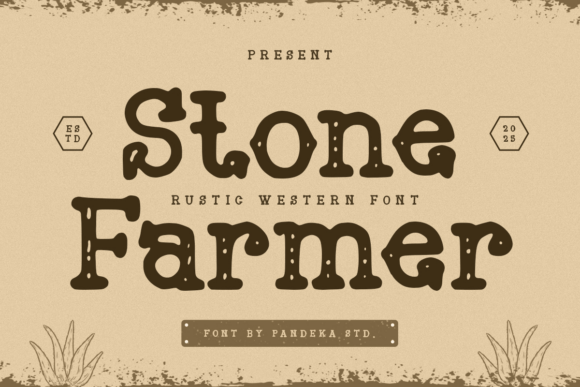
Stone Farmer: A Rustic Western Typeface for Authentic Branding
In the world of digital design and print media, typography often serves as the silent narrator of a brand's story. While sleek sans-serifs dominate modern tech interfaces and elegant serifs grace luxury publications, there remains a distinct niche for fonts that evoke history, ruggedness, and the untamed spirit of the frontier. Stone Farmer is a typeface designed specifically to fill this gap. It is not merely a collection of letters; it is a visual representation of the old west, crafted with a single Regular style that balances bold slab shapes with rough, textured details. For designers, business owners, and creators looking to inject a handcrafted cowboy spirit into their projects, understanding the nuances of Stone Farmer can be the key to achieving an authentic aesthetic.
The Essence of the Frontier in Typography
The inspiration behind Stone Farmer is deeply rooted in the atmosphere of dusty trails and wild ranches. Unlike geometric fonts that rely on mathematical perfection, this typeface embraces organic curves and sturdy lettering to capture the charm of old western towns. The design philosophy prioritizes character over uniformity. Each glyph features a slight unevenness that authentically mimics a weathered, hand-crafted feel, as if the letters were chiseled by hand into a rock face or stenciled onto a wooden crate by a weary traveler.
This approach creates a powerful, earthy presence that resonates with audiences seeking authenticity. In an era where digital perfection is the norm, the deliberate imperfections of Stone Farmer stand out. They suggest a narrative of durability and resilience. When viewers encounter this font, they are immediately transported to a time of cowboys, rodeos, and frontier life. This emotional connection is vital for brands that want to signal tradition, reliability, and a grounded identity.
Key Visual Characteristics
To understand why Stone Farmer works so well for specific applications, one must examine its structural elements. The font is defined by several distinct features that contribute to its unique personality:
- Bold Slab Shapes: The core structure of the letters is heavy and substantial. These chunky forms ensure that the text commands attention without needing excessive scaling.
- Rough Textured Details: The edges of the characters are not smooth lines but are treated with texture that simulates wear and tear. This adds depth and a tactile quality to the design.
- Chunky, Rounded Serifs: The serifs are thick and rounded, softening the otherwise rigid blockiness of the slab style. This combination creates a friendly yet tough appearance.
- Unique Character Openings: Despite the distressed look, the counter spaces (the holes inside letters like 'O' or 'e') are carefully designed to maintain high legibility, even against busy backgrounds.
These characteristics work in harmony to create a font that feels both robust and inviting. The "handcrafted" nature of the design means that no two instances of the font will ever feel entirely sterile or machine-made, which is crucial for maintaining the illusion of authenticity.
Practical Applications and Real-World Scenarios
The versatility of Stone Farmer extends far beyond simple decoration. Its robust structure makes it an excellent choice for crafting memorable logos, vintage brewery labels, rustic signage, and any design needing a strong visual anchor. Below are several real-world scenarios where this typeface excels:
Vintage Brewery and Craft Beverage Labels
The craft beer industry thrives on storytelling and heritage. Many breweries adopt names and themes related to local history, agriculture, or the rugged outdoors. Stone Farmer is perfectly suited for these labels. Its weathered texture pairs beautifully with kraft paper, wax seals, and embossed finishes. Imagine a label for a stout named "Midnight Trail" or an IPA called "Rancher's Reserve." Using Stone Farmer for the primary logo instantly communicates that the product is brewed with care, using traditional methods, and possesses a bold flavor profile. The font's ability to remain readable despite the distressed background ensures that essential information, such as alcohol content or volume, does not get lost in the artistic flair.
Rustic Signage and Hospitality Branding
For businesses in the hospitality sector, such as steakhouses, BBQ joints, or boutique hotels with a western theme, signage is the first point of contact with customers. Stone Farmer brings the atmosphere of the frontier directly to the storefront. Whether carved into wood, painted on metal, or printed on vinyl, the font conveys a sense of warmth and welcome. It suggests that the establishment is a place where good food and genuine hospitality are served, much like in the old days of the saloon or the general store.
Apparel Prints and Merchandise
Fashion often draws inspiration from subcultures, and the western aesthetic has seen a resurgence in recent years. Designers creating t-shirts, hats, and patches for rodeo events, country music festivals, or outdoor adventure brands can leverage Stone Farmer to create eye-catching graphics. The bold structure of the font ensures that text prints clearly on fabric, while the rustic details add a layer of visual interest that elevates the garment from a basic tee to a statement piece.
Event Posters and Promotional Materials
Whether organizing a county fair, a cattle drive reenactment, or a vintage car show, the promotional materials need to set the right tone. Stone Farmer acts as a powerful tool for event branding. On posters, it can serve as the headline, drawing the eye immediately. Its adventurous personality encourages participation, promising an experience that is exciting, raw, and unpretentious.
Whether you are designing a label for a new batch of whiskey, creating a sign for a family-owned BBQ shack, or branding a line of rugged outdoor apparel, Stone Farmer provides the perfect typographic voice. It reminds us that in a digital world dominated by clean lines and perfect pixels, there is still immense value in the rough, the real, and the hand-made. By choosing this typeface, you are not just selecting a style; you are committing to a narrative of resilience and charm that continues to captivate audiences today.